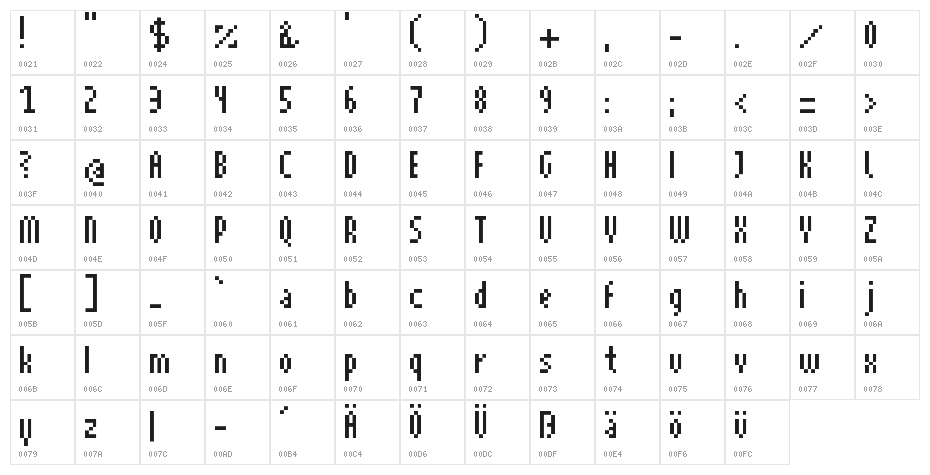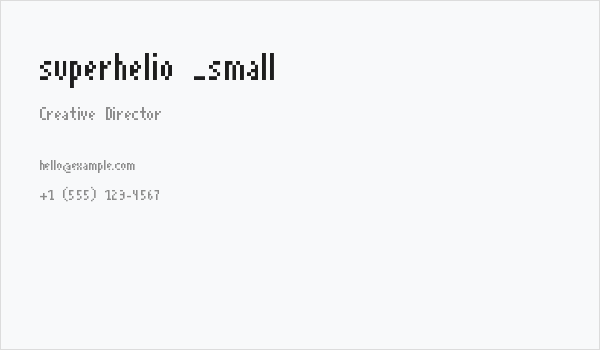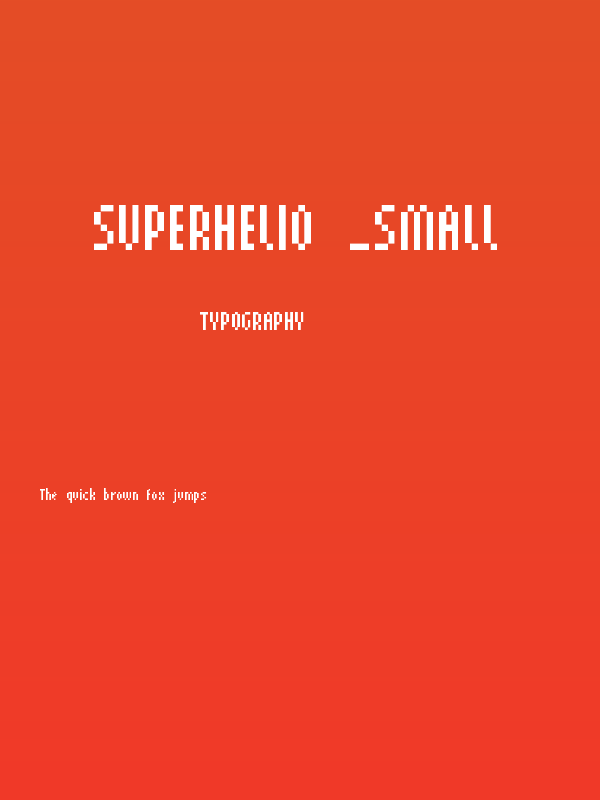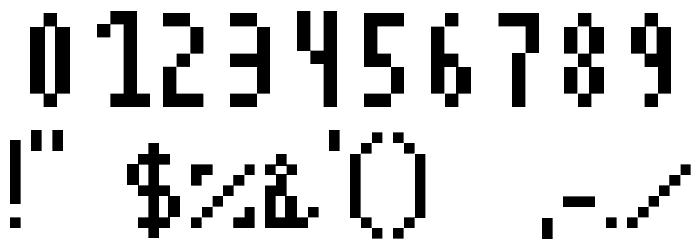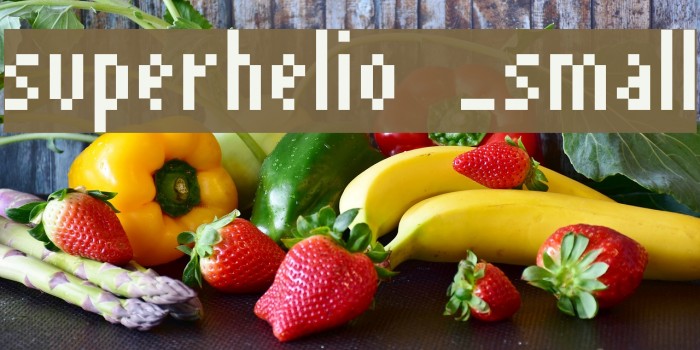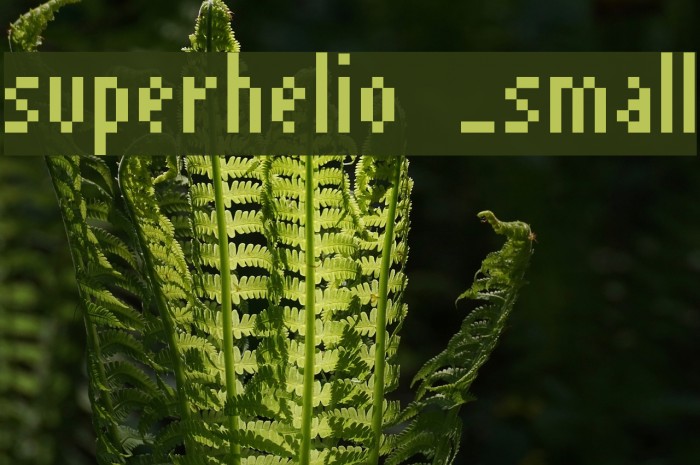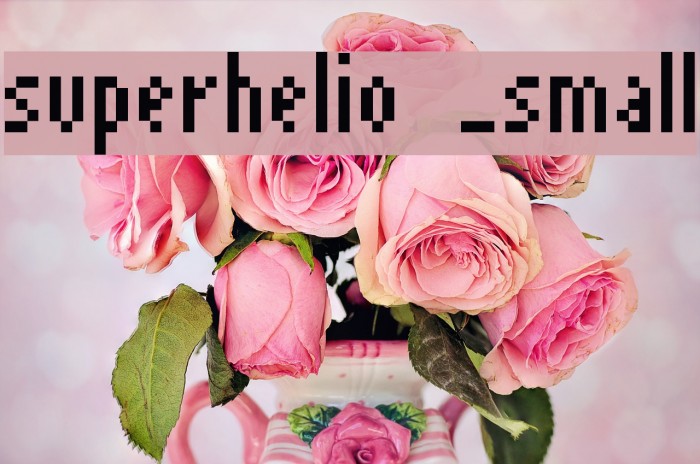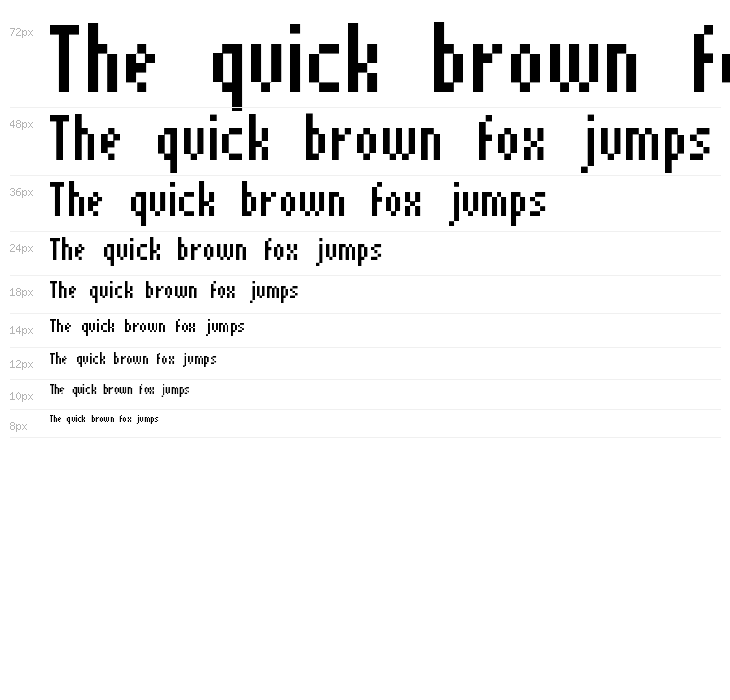
superhelio _small Font
superhelio _small Description
This font features a pixelated, blocky design reminiscent of early digital displays and retro video games. Each character is constructed with a grid-like precision, giving it a distinctly digital and geometric appearance. The uppercase and lowercase letters maintain a consistent height, contributing to a uniform look. The numerals and special characters follow the same pixelated style, ensuring cohesion across all glyphs. This font's nostalgic aesthetic is perfect for projects that aim to evoke a sense of vintage computing or gaming.
Font by Sven Stuber - www.superlooper.de
| Overall Style | Vintage |
| Use Case | Logos, Headlines, Digital Art |
| Proposed Projects | Ideal for retro video game designs, digital art projects, tech-themed posters, and any creative work that requires a nostalgic digital feel. |